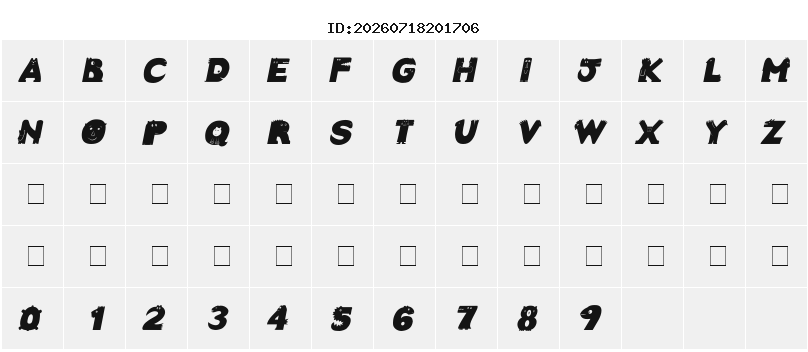
• Font Name: Crazy Creatures
• Font Style: Bold-Italic
• Full Font Name: Crazy Creatures Bold-Italic
About Crazy Creatures .ttf
Crazy Creatures .ttf is a modern, elegant sans-serif font designed for ultimate readability and visual harmony. Perfect for branding, headlines, web design, and print materials.